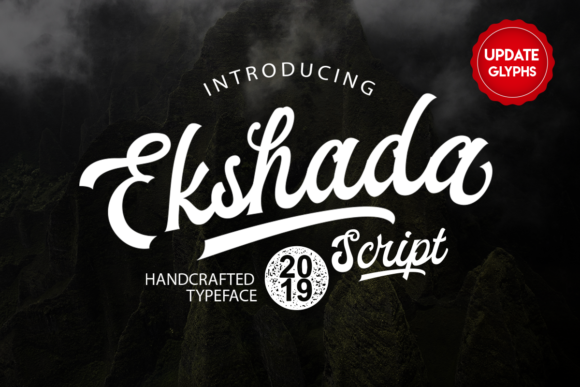
Unleashing Vintage Charm: The Ekshada Font
You know that feeling when you stumble upon an old, forgotten trunk in your attic, and inside, you find a treasure trove of vintage posters and advertisements? The smell of aged paper, the intricate illustrations, and the classic typography all come together to transport you to a bygone era. That’s the magic of Ekshada Font – a handcrafted script that embodies the essence of vintage posters, perfect for designers looking to add a touch of classic charm to their projects.
Ekshada Font is more than just a font; it’s a time capsule that brings the nostalgia of the past to life. With its clean lines, elegant curves, and clear typography, this script font is designed to make your designs stand out. Whether you’re working on a retro-themed project or simply want to add a touch of sophistication to your branding, Ekshada Font is the perfect choice.
- Unique Characteristics: Ekshada Font features a unique blend of traditional and modern design elements, making it an ideal choice for projects that require a distinctive and eye-catching look.
Ekshada Font Review
Overall, I think Ekshada Font is a unique and stylish choice for designers looking to add some flair to their projects. ✨ The font’s intricate details and ornate design elements make it perfect for creating a sense of luxury and sophistication.
- The font’s versatility is one of its strongest points. It can be used for a wide range of applications, from invitations and wedding stationery to logos and branding materials.
- The high level of detail and craftsmanship that has gone into designing Ekshada Font is evident in every letter and symbol. It’s a testament to the designer’s skill and dedication.
- The font is also highly customizable, allowing designers to tailor it to their specific needs and preferences.
However, there are some limitations to consider: ⚠️ The font may not be suitable for use in situations where a clear, easy-to-read font is required, such as in body text or signage.
Another potential issue is that the font’s intricate design elements may be difficult to read at small sizes or in low-resolution contexts.
Overall, I think Ekshada Font is a solid choice for designers who want to add some visual interest to their projects. While it may not be suitable for every application, it’s a great option for those who need a unique and stylish font.
Ekshada Font is particularly useful in Canva for creating eye-catching headings and titles.
Ekshada Font is ideal in Adobe applications for creating custom typography and text effects.
Ekshada Font is a great choice in PowerPoint and Word for adding a touch of elegance to your presentations and documents.
Ekshada Font is versatile and can be used in a variety of contexts, including:
Headings and titles in brochures, flyers, and posters.
Custom typography in logos and branding materials.
Adding a touch of elegance to presentations and documents.